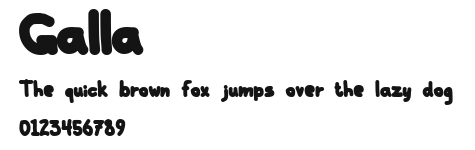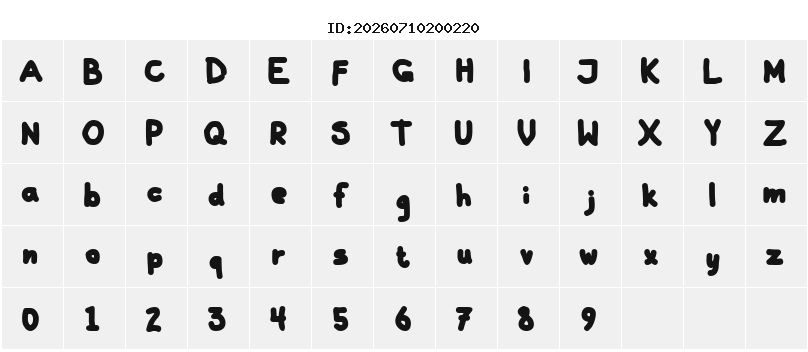
Galla Preview
• Font Name: Galla
• Font Style: Black
• Font ID: Macromedia Fontographer 4.1 Galla Black
• Full Font Name: Galla Black
• PostScript Name: GallaBlack
About Galla.ttf
Galla.ttf is a modern, elegant sans-serif font designed for ultimate readability and visual harmony. Perfect for branding, headlines, web design, and print materials.